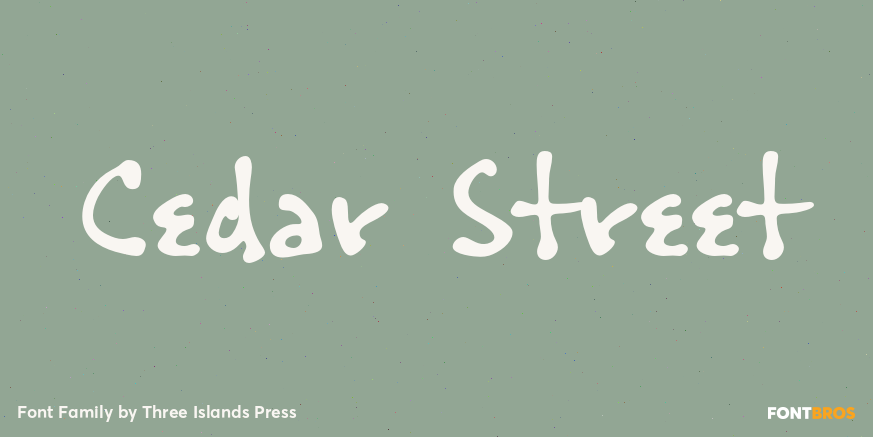
Cedar Street
About Cedar Street
There\’s something satisfying about tweaking to perfection a typeface based on the particular style of lettering applied to a particular kind of paper by a particular human hand. One day, in pursuit of this curious sense of satisfaction, I sat down with…